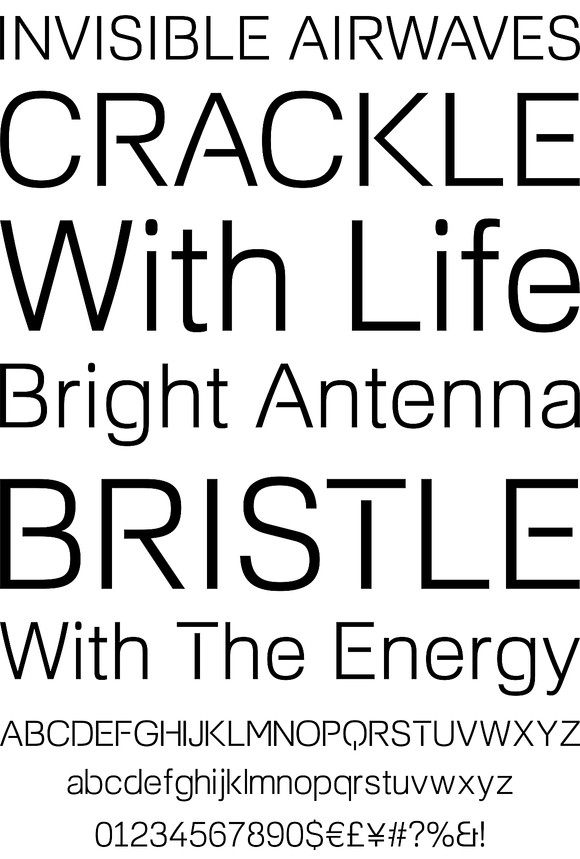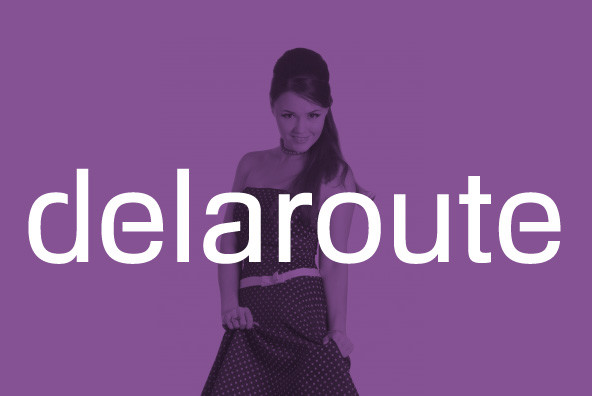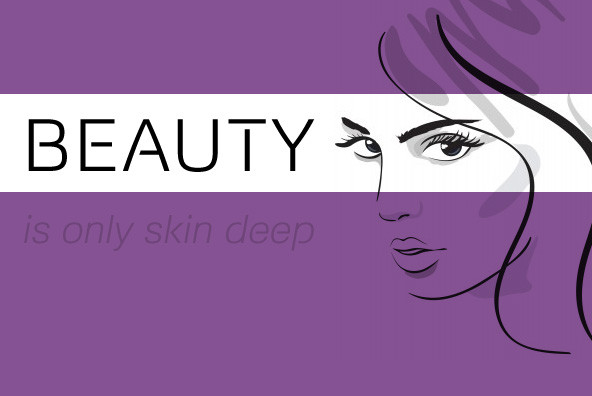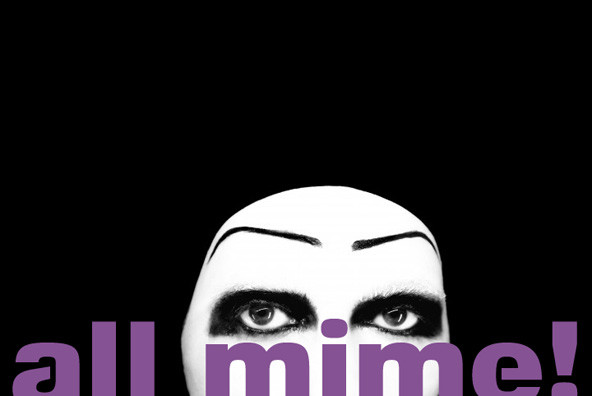
Foobar Pro
Foundry: CheapProFonts
This is the cool and stylish relative to Familiar pro. Like a cousin. Or perhaps a second cousin twice removed. Because parts of the letters are removed, see.